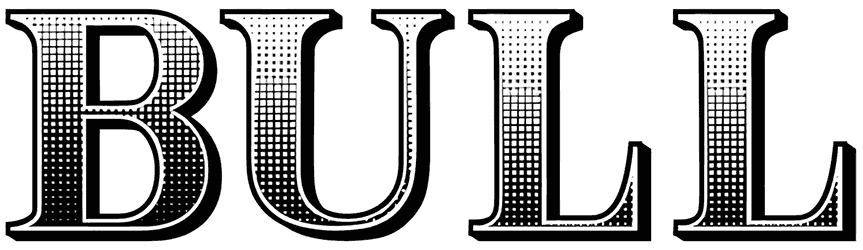
Bull Font
There is no doubt that the Bull font is one of the wonders of the ‘60s font collection. In addition to t-shirt design and steel backgrounds, such as car brands, this retro font’s halftone and grid texture are suitable for various uses.
Since this two-tone font does not support small letters and numbers, it is excellent and perfect for use in large sizes due to having two different types.